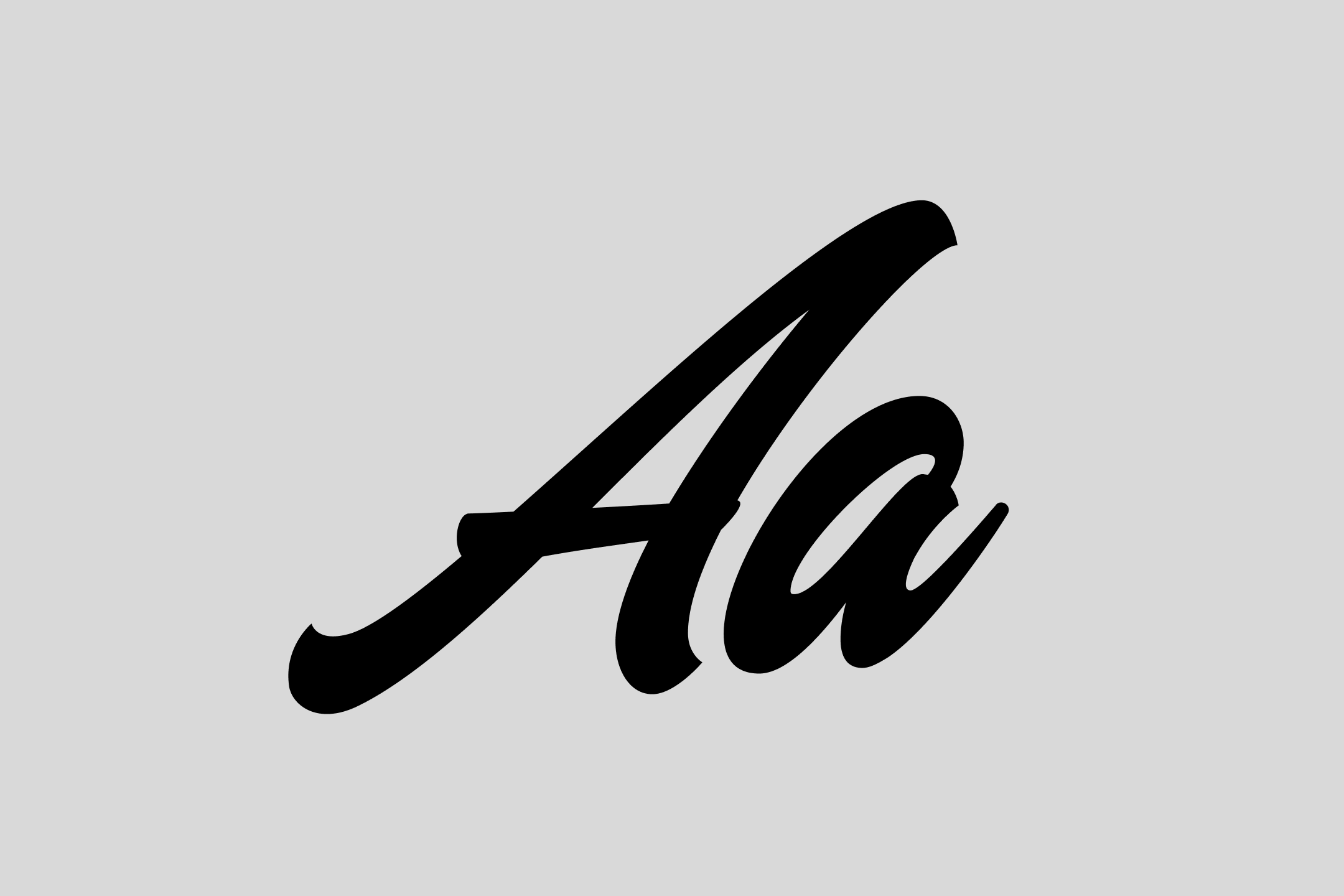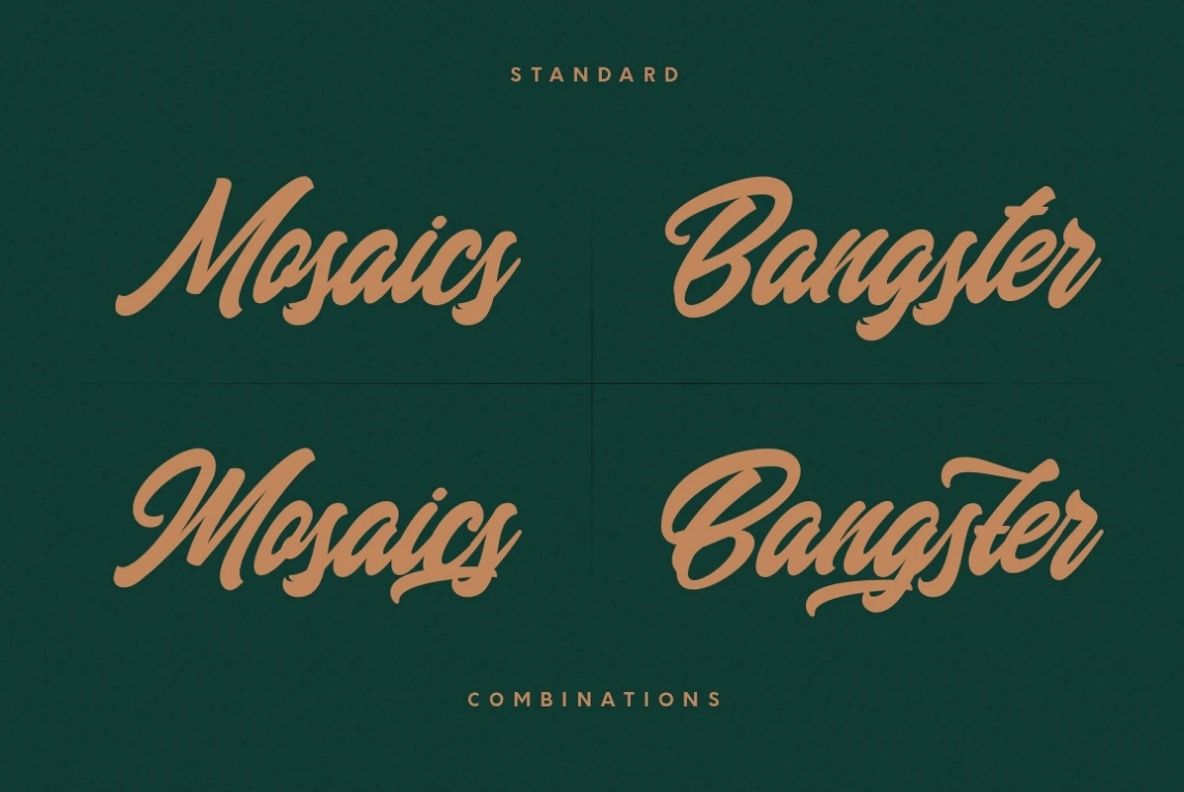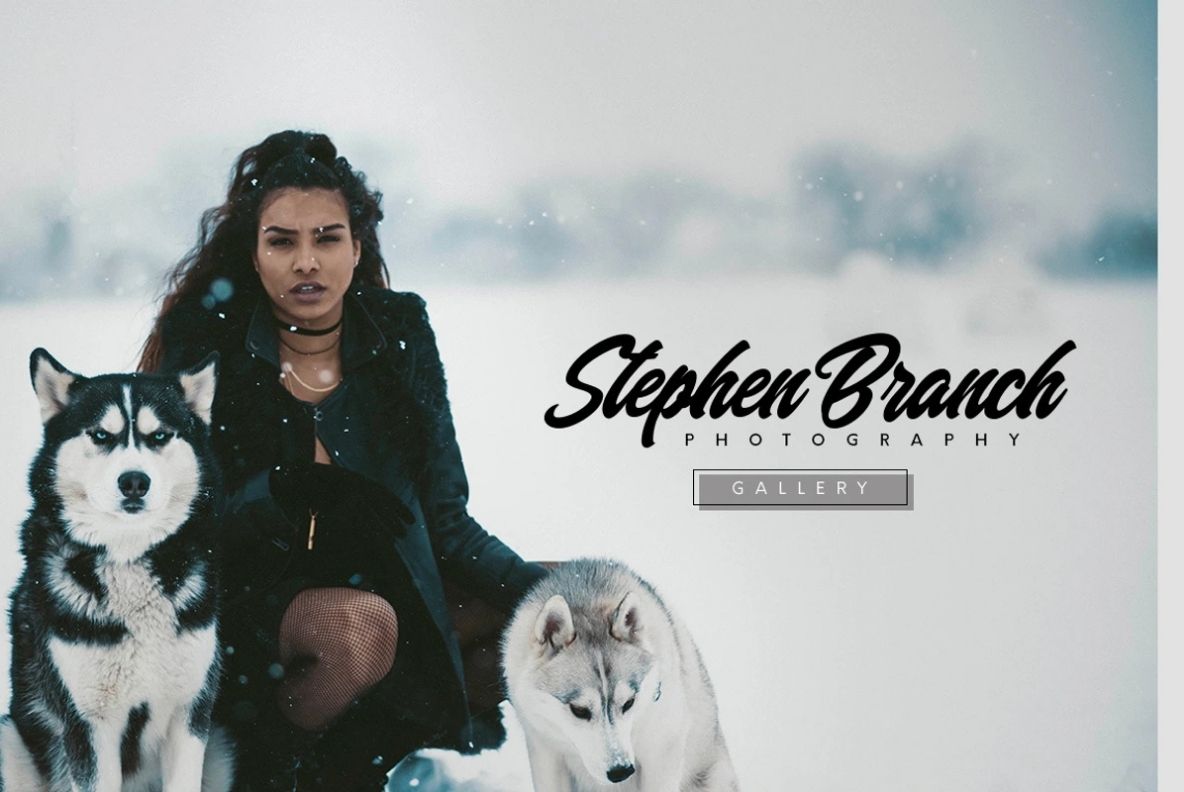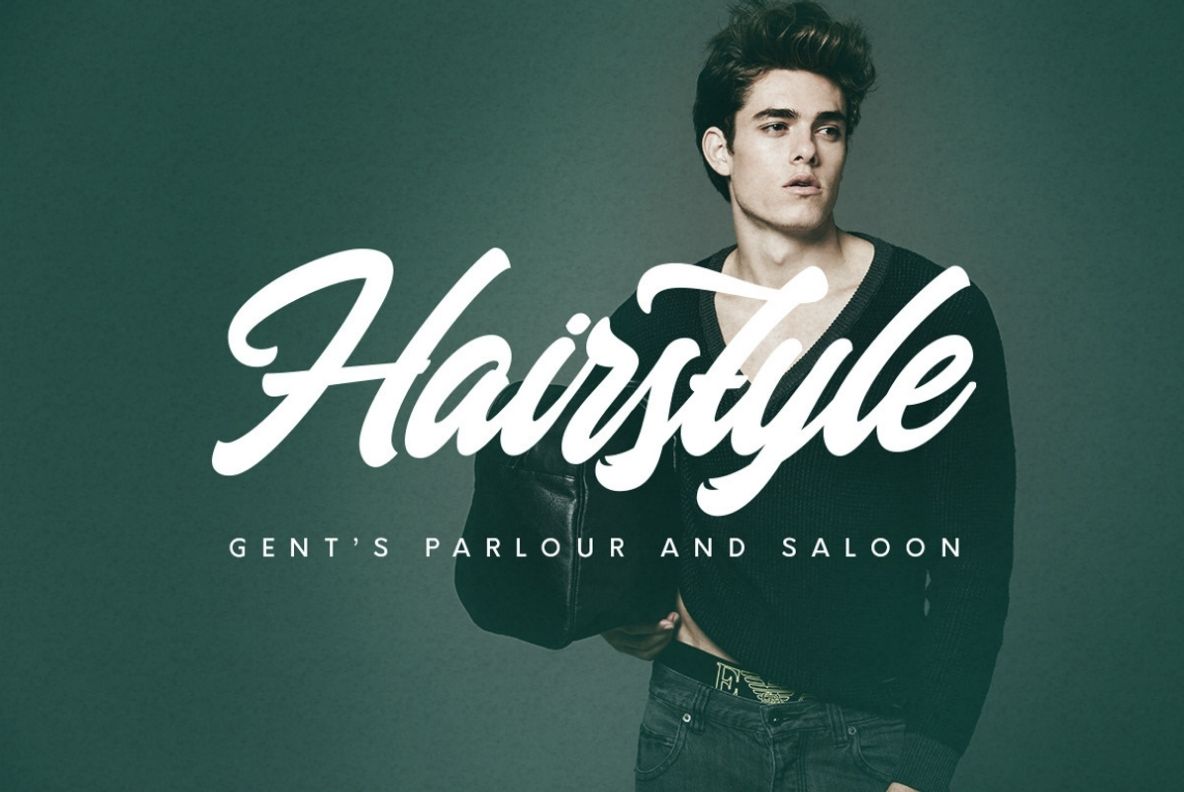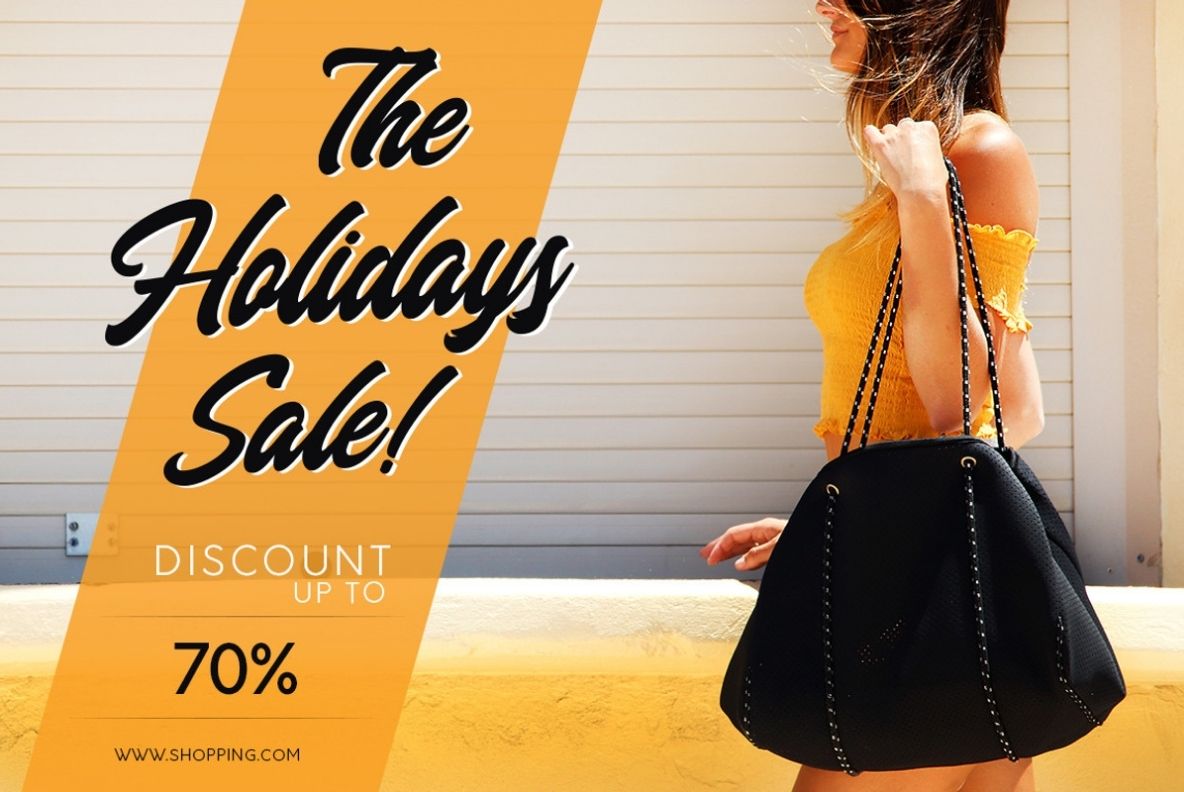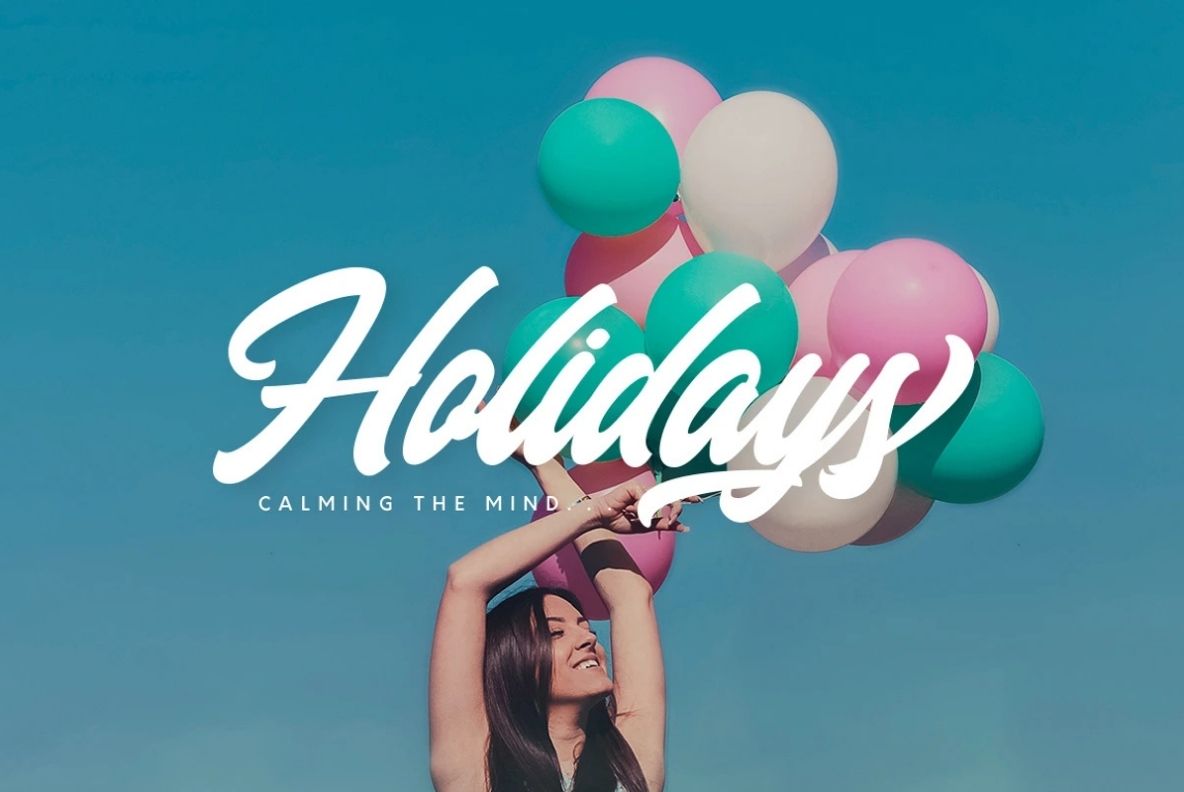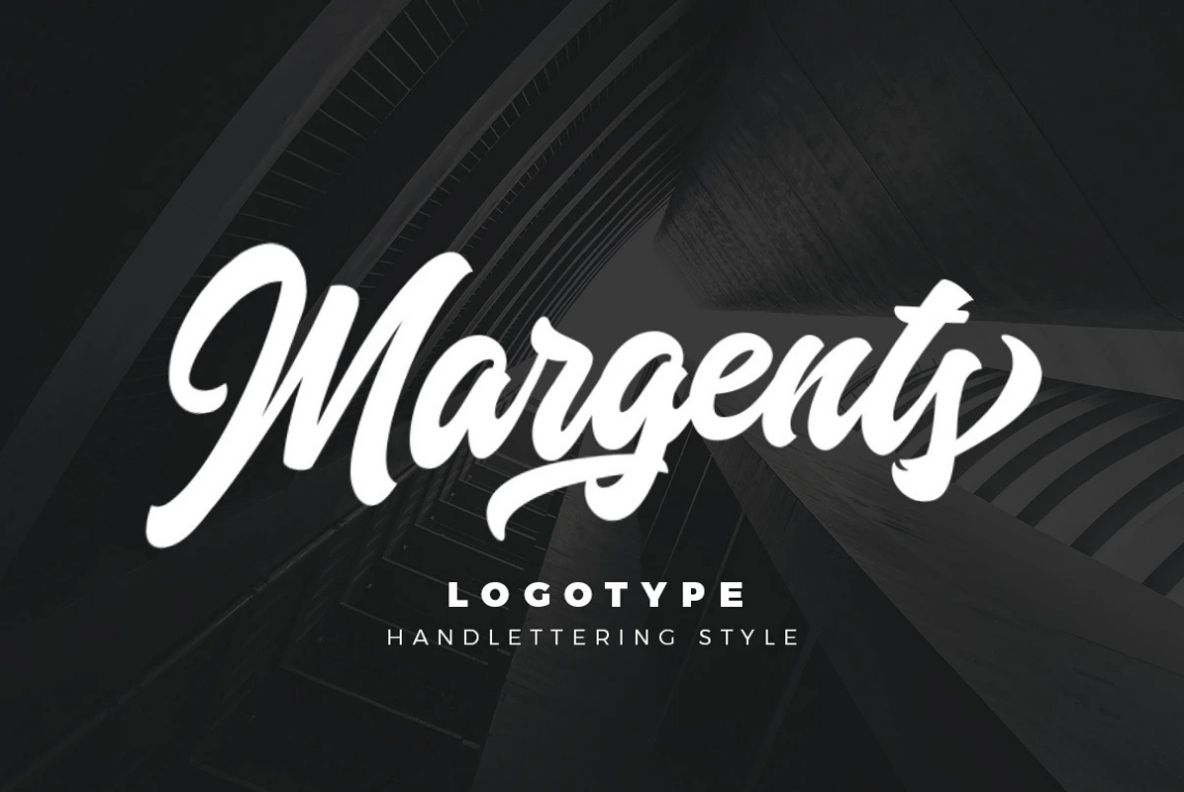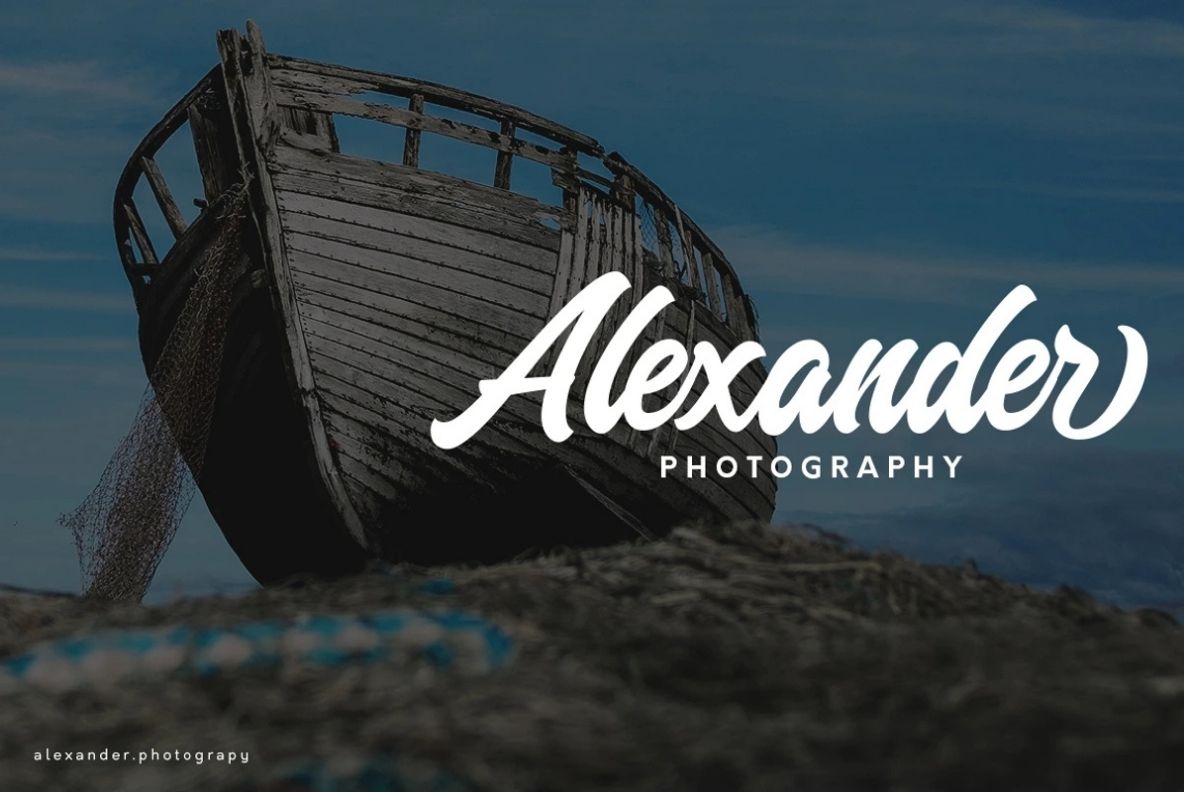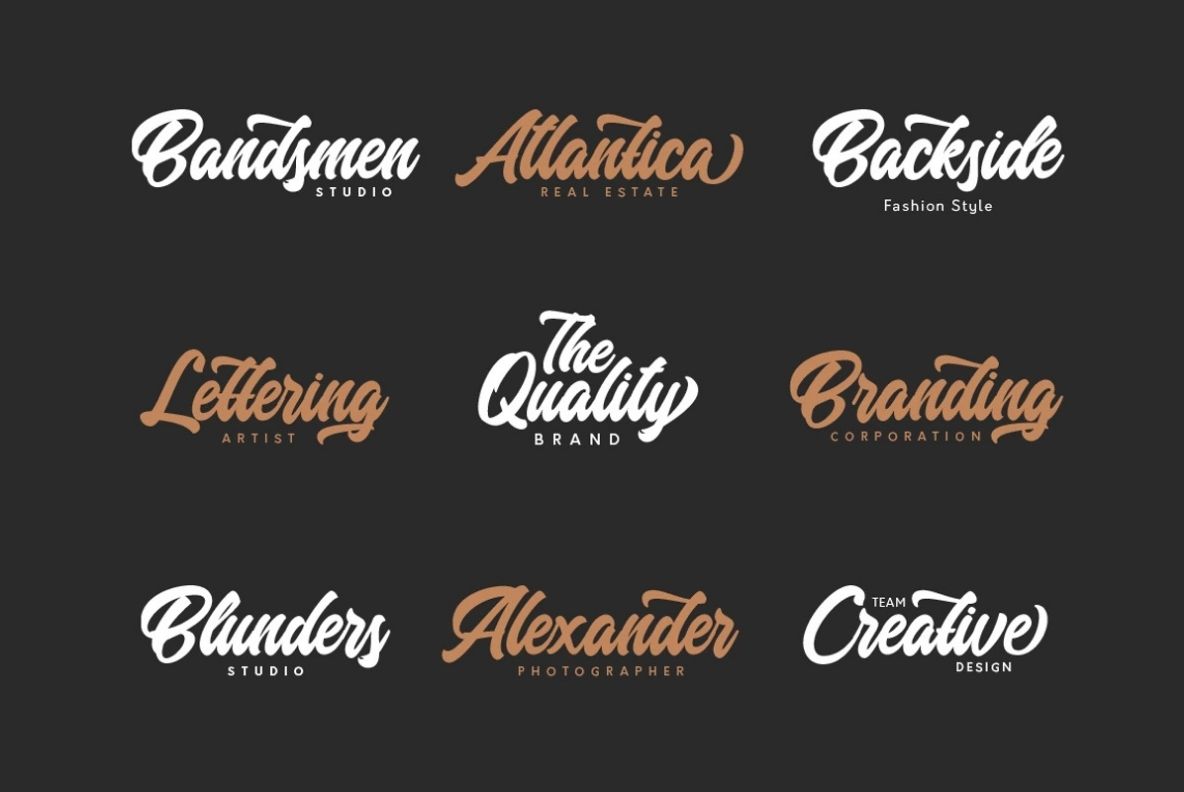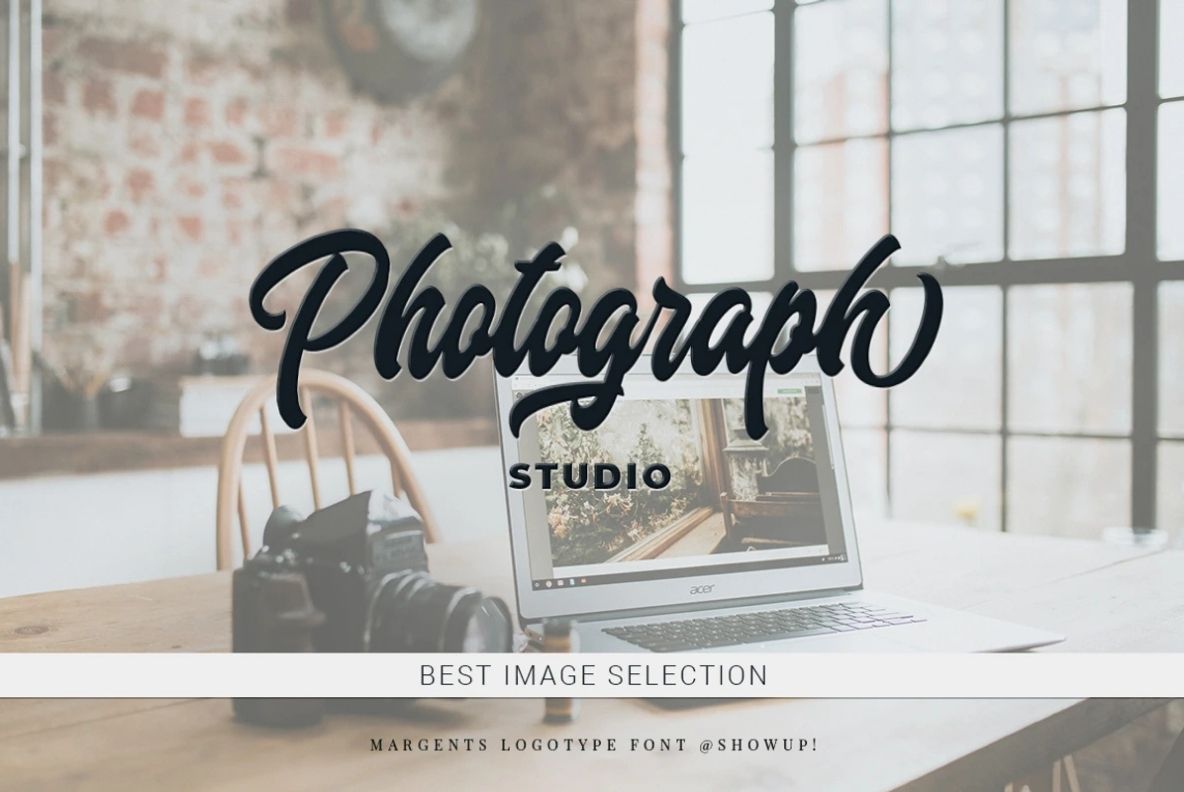
Margents
Whether you’re designing logos, packaging, apparel, or branding materials, Margents delivers the handcrafted character needed to make every project stand out.
Elegant Design for Meaningful Brands
Introducing Margents, a bold handlettering script designed to create eye-catching logos and authentic branding. Inspired by handcrafted brush lettering, Margents delivers natural flowing strokes, confident curves, and expressive characters that instantly add personality to any design.
Whether you’re building a modern brand identity, crafting stylish apparel graphics, or designing social media content, Margents brings a handcrafted touch that feels both energetic and professional. Its smooth connections and strong letterforms make it perfect for logo creation and standout typography.
From creative businesses to lifestyle brands, Margents helps transform ordinary text into memorable visual identities.
Perfect For
• Logo Design
• Branding & Identity
• Clothing & Apparel
• Barbershop Logos
• Coffee Shop Branding
• Restaurant & Café
• Packaging Design
• Product Labels
• Social Media Graphics
• Posters & Headlines
• Merchandise
• Handlettering Projects
Features
• Handlettering Script Style
• Uppercase & Lowercase
• Numbers & Punctuation
• Beautiful Ligatures
• Stylistic Alternates
Margents is a handcrafted script font made for designers who want expressive typography with a bold, authentic feel. Whether you’re designing logos, packaging, apparel, or branding materials, Margents delivers the handcrafted character needed to make every project stand out.
Introducing Margents, a bold handlettering script designed to create eye-catching logos and authentic branding. Inspired by handcrafted brush lettering, Margents delivers natural flowing strokes, confident curves, and expressive characters that instantly add personality to any design.
Whether you’re building a modern brand identity, crafting stylish apparel graphics, or designing social media content, Margents brings a handcrafted touch that feels both energetic and professional. Its smooth connections and strong letterforms make it perfect for logo creation and standout typography.